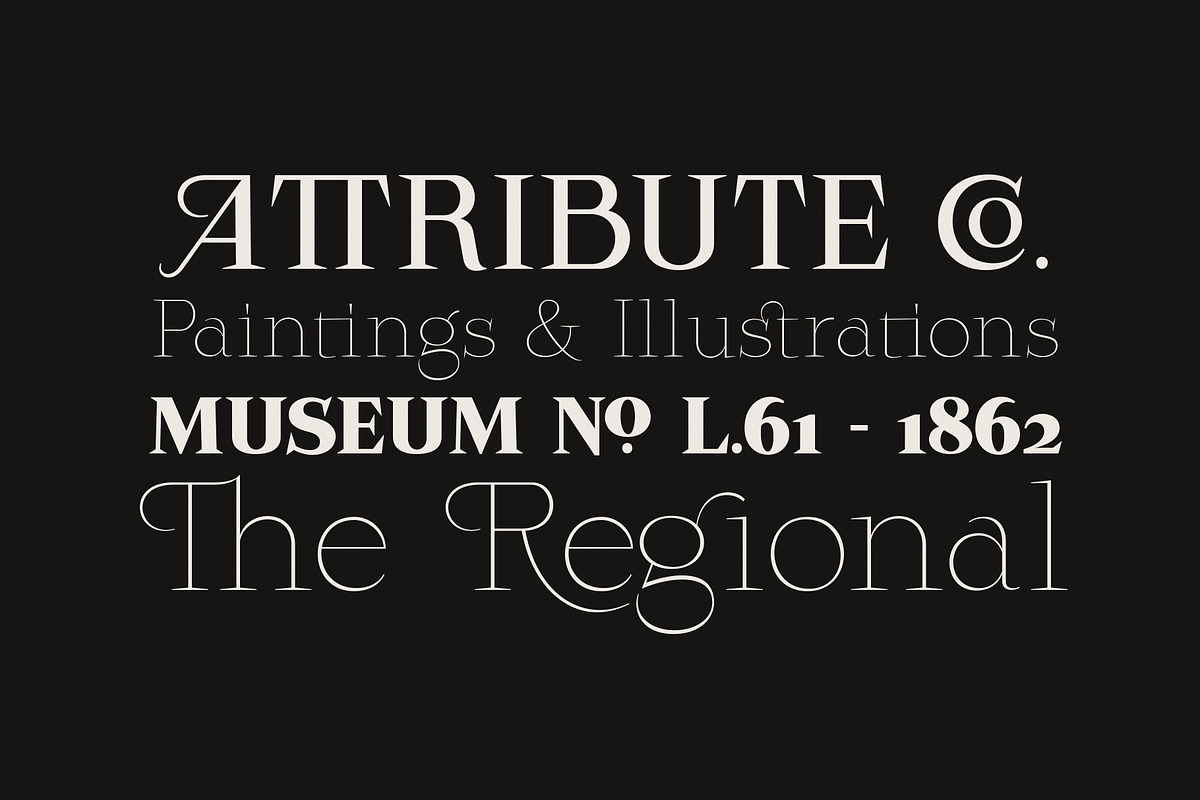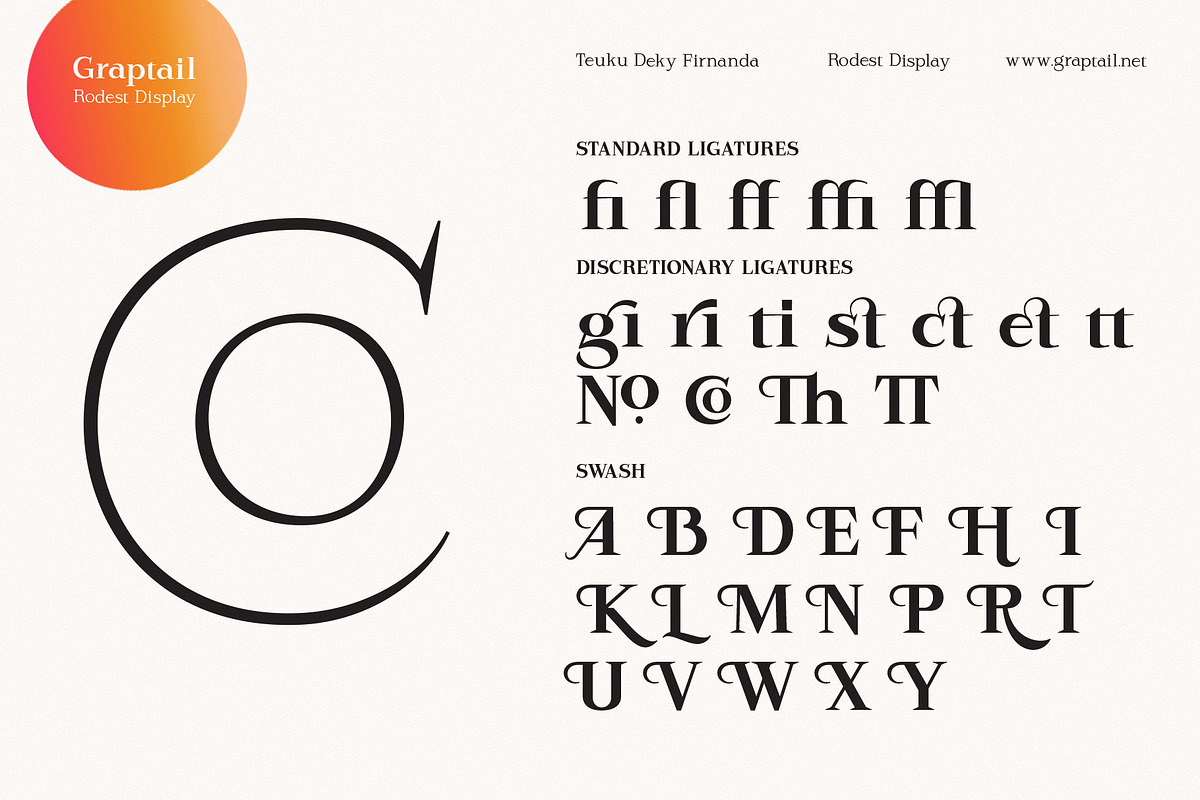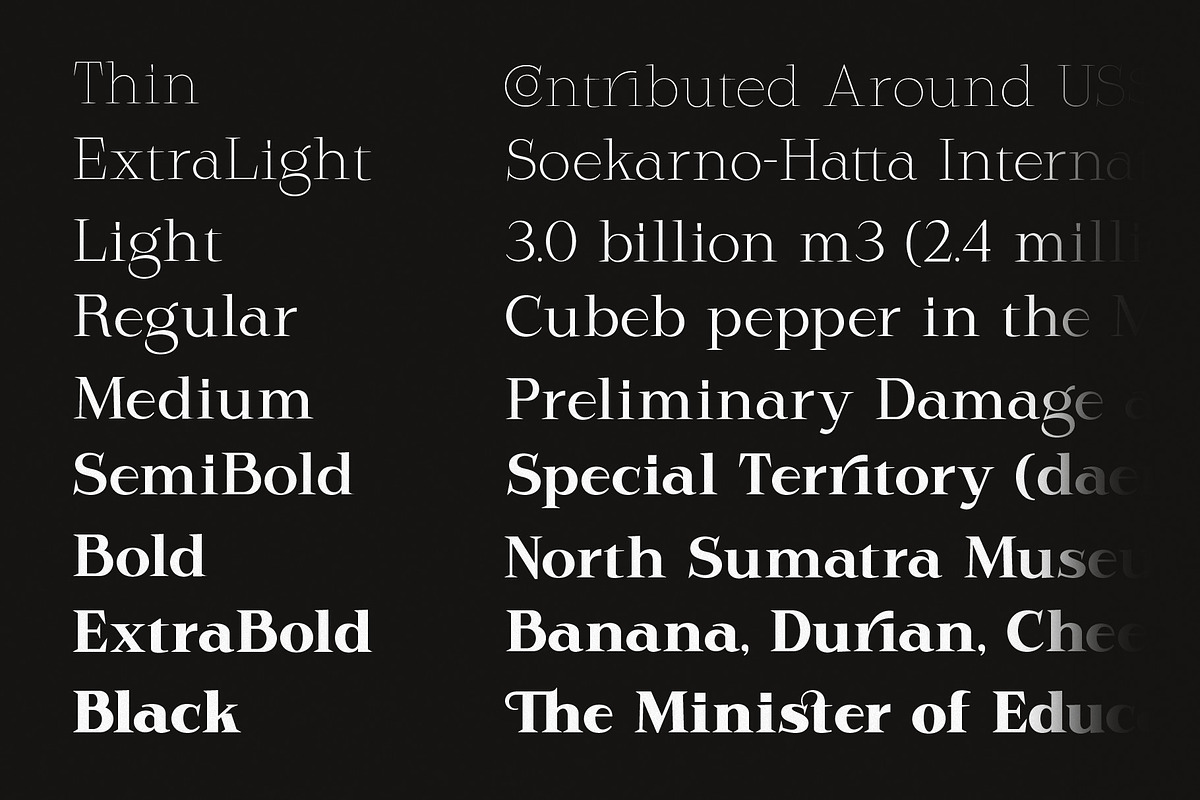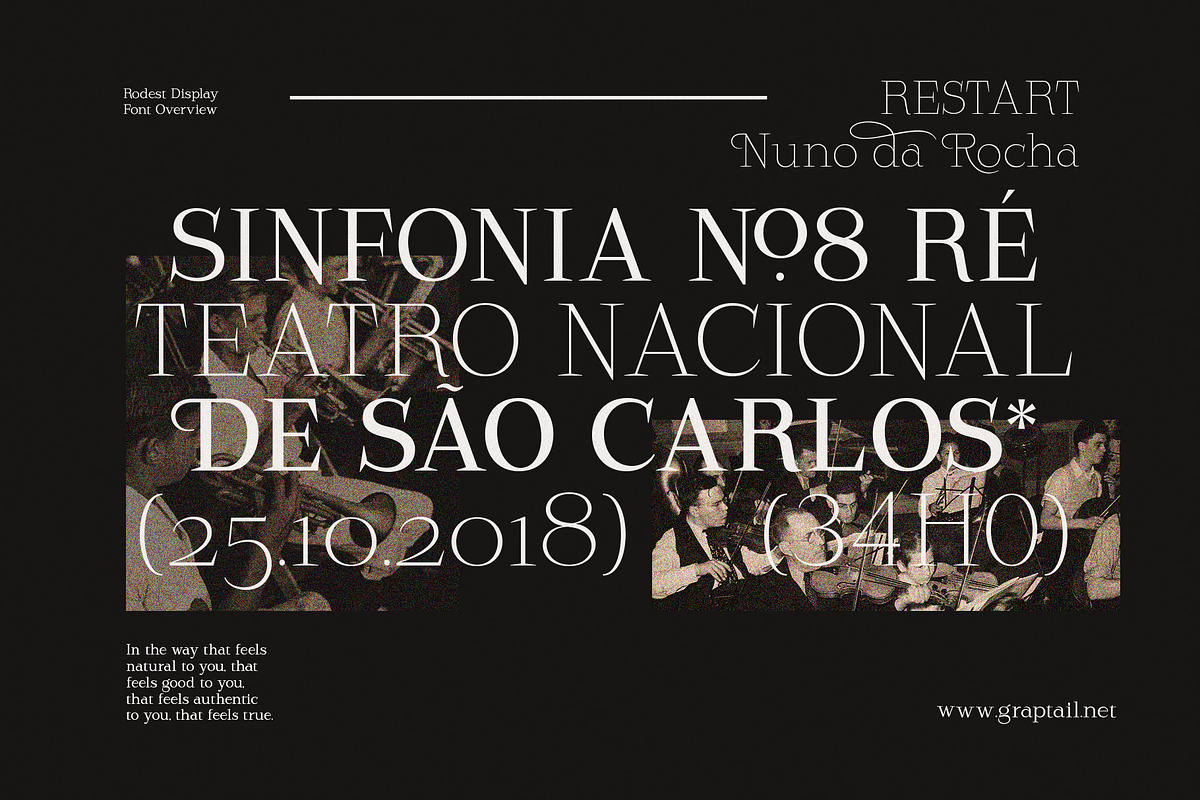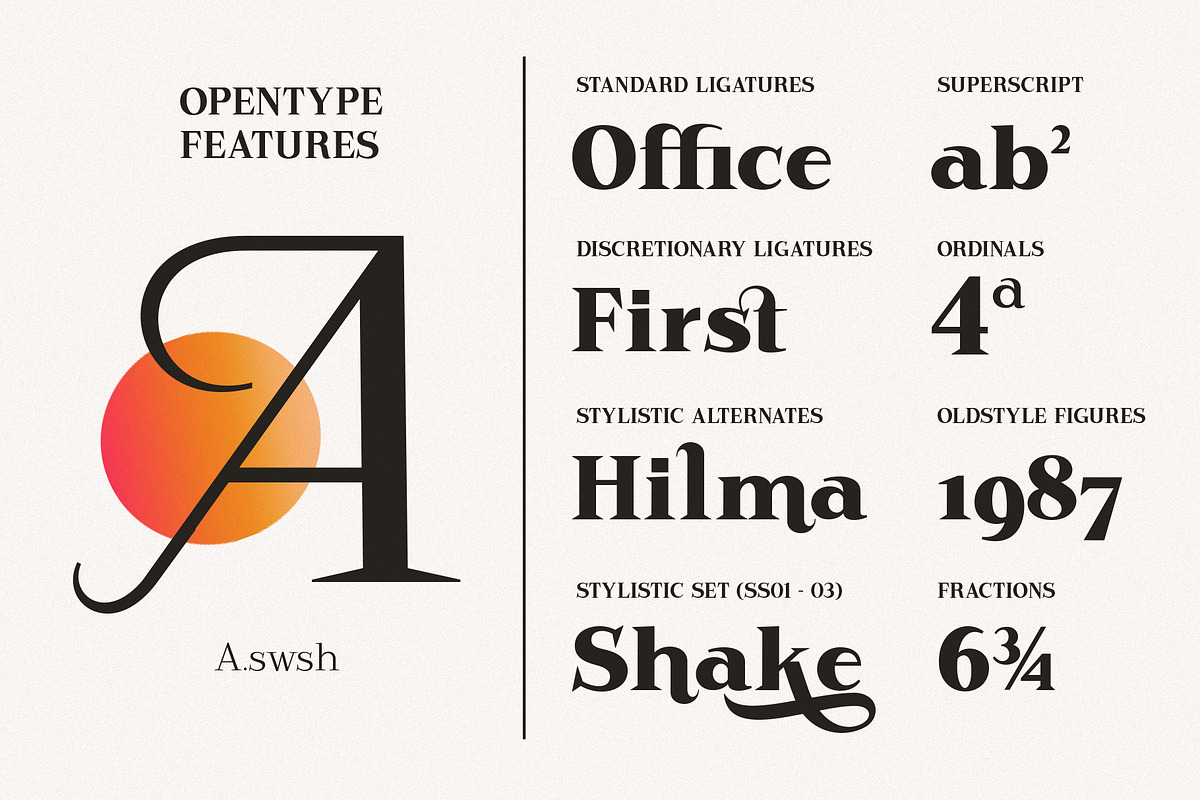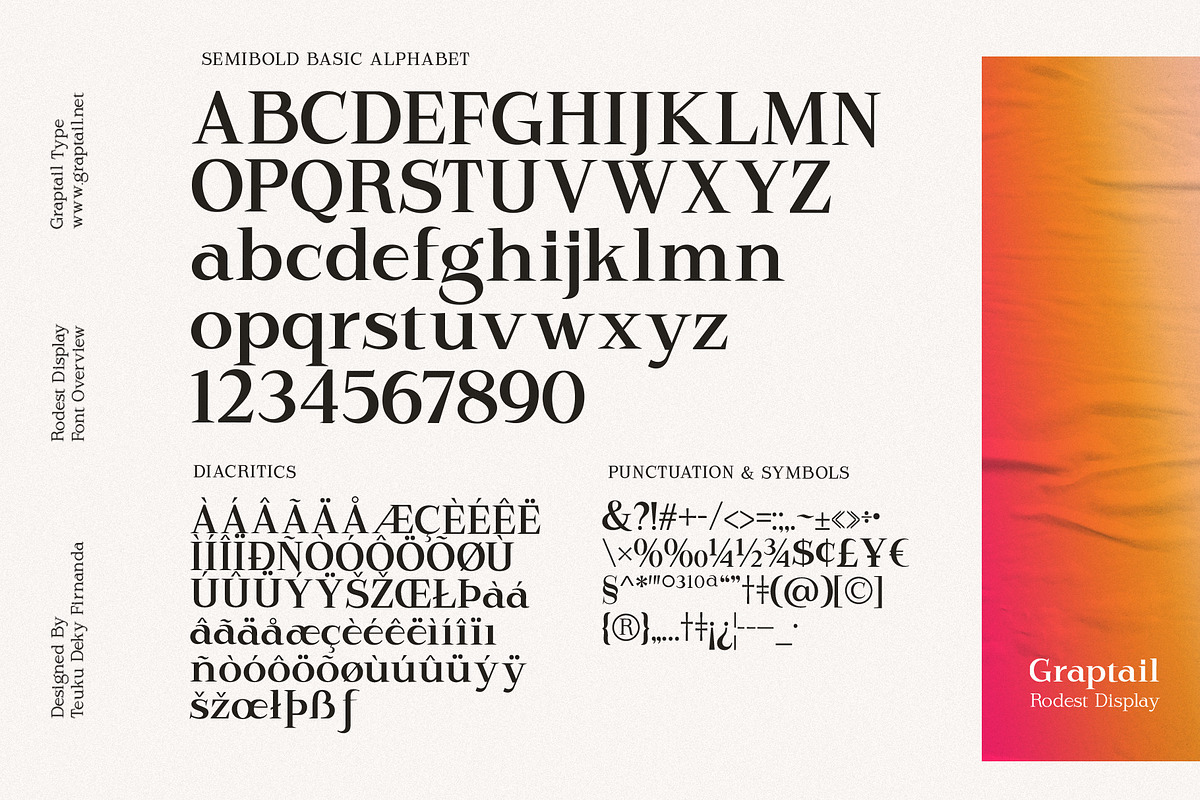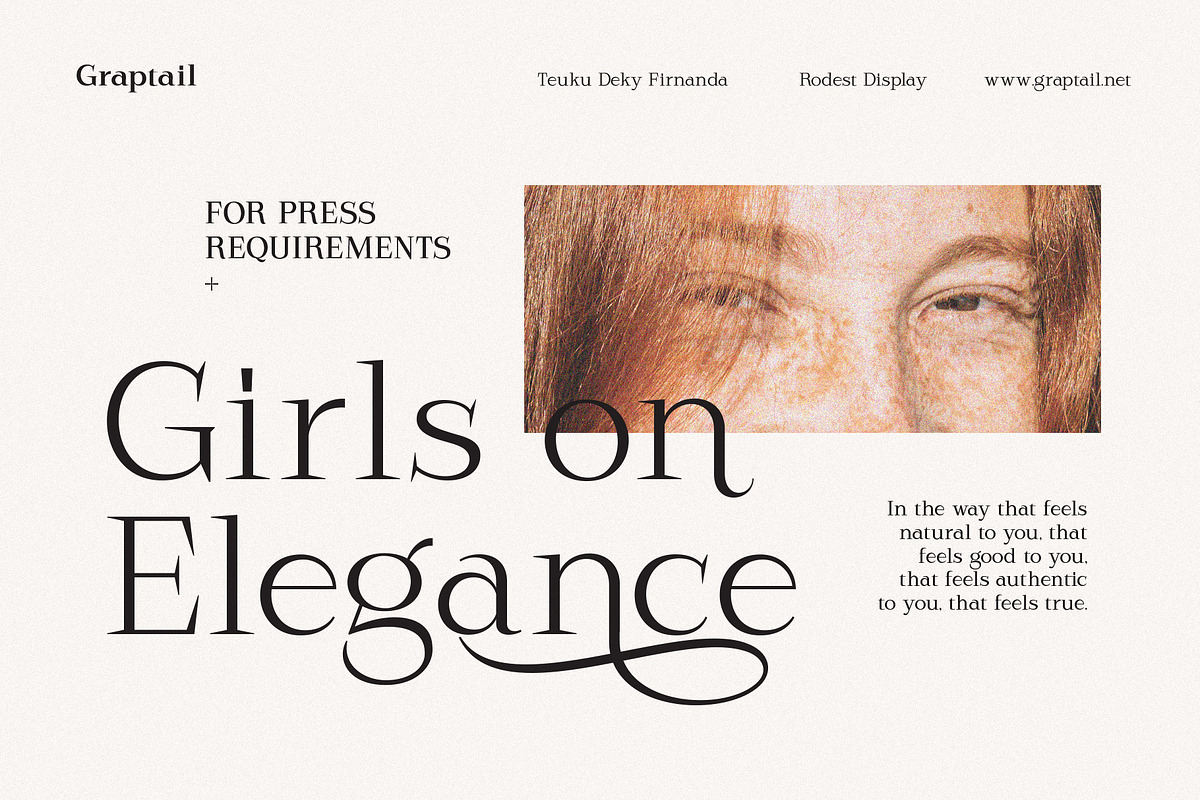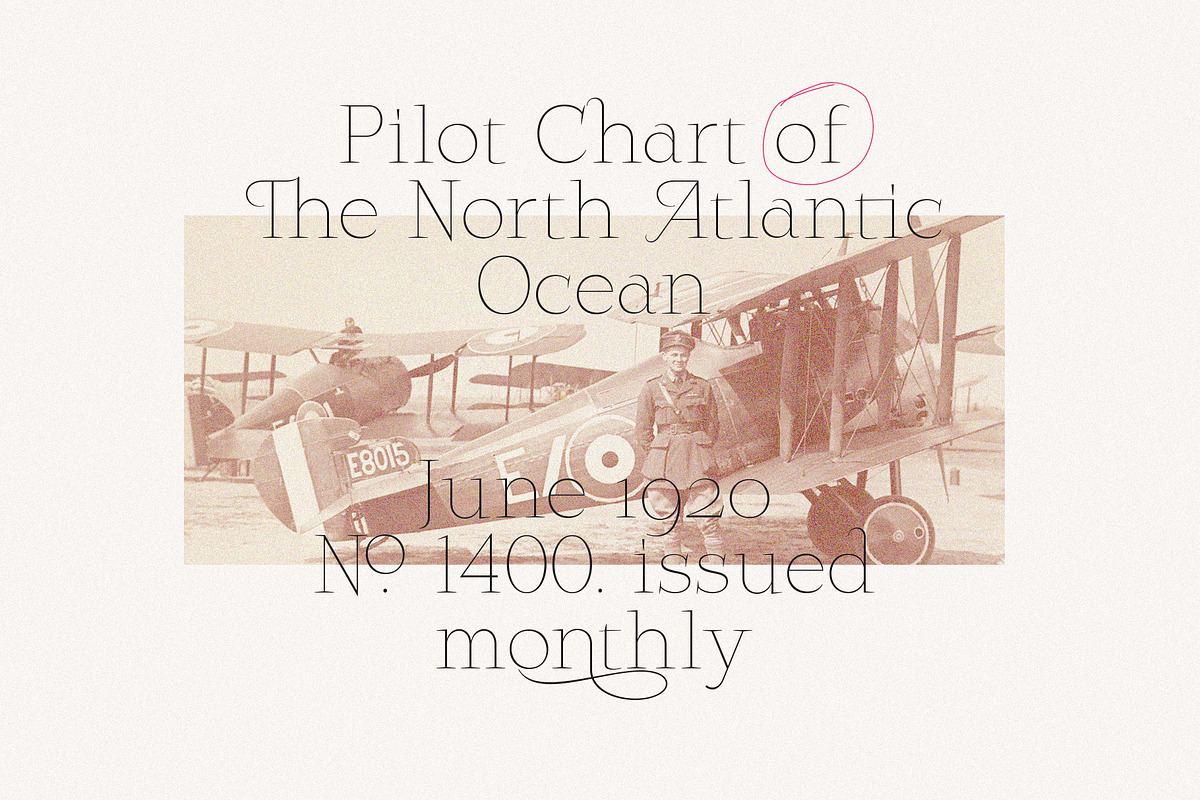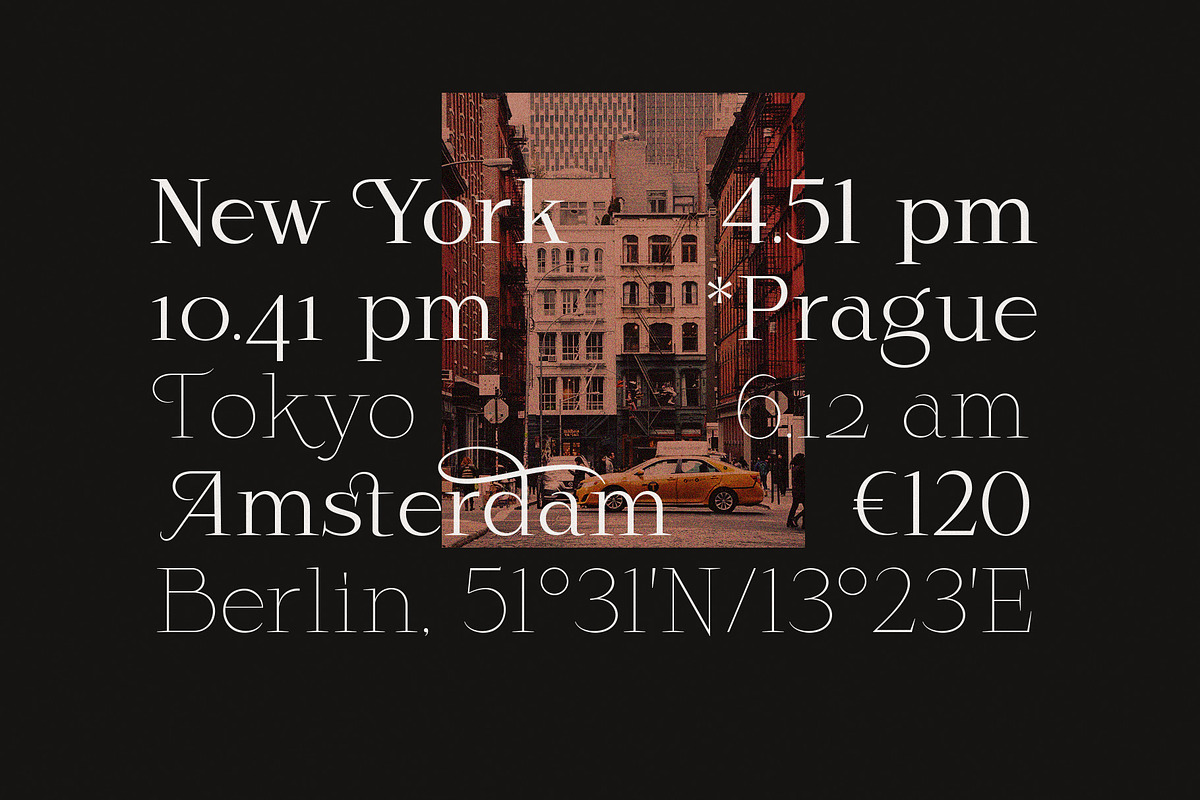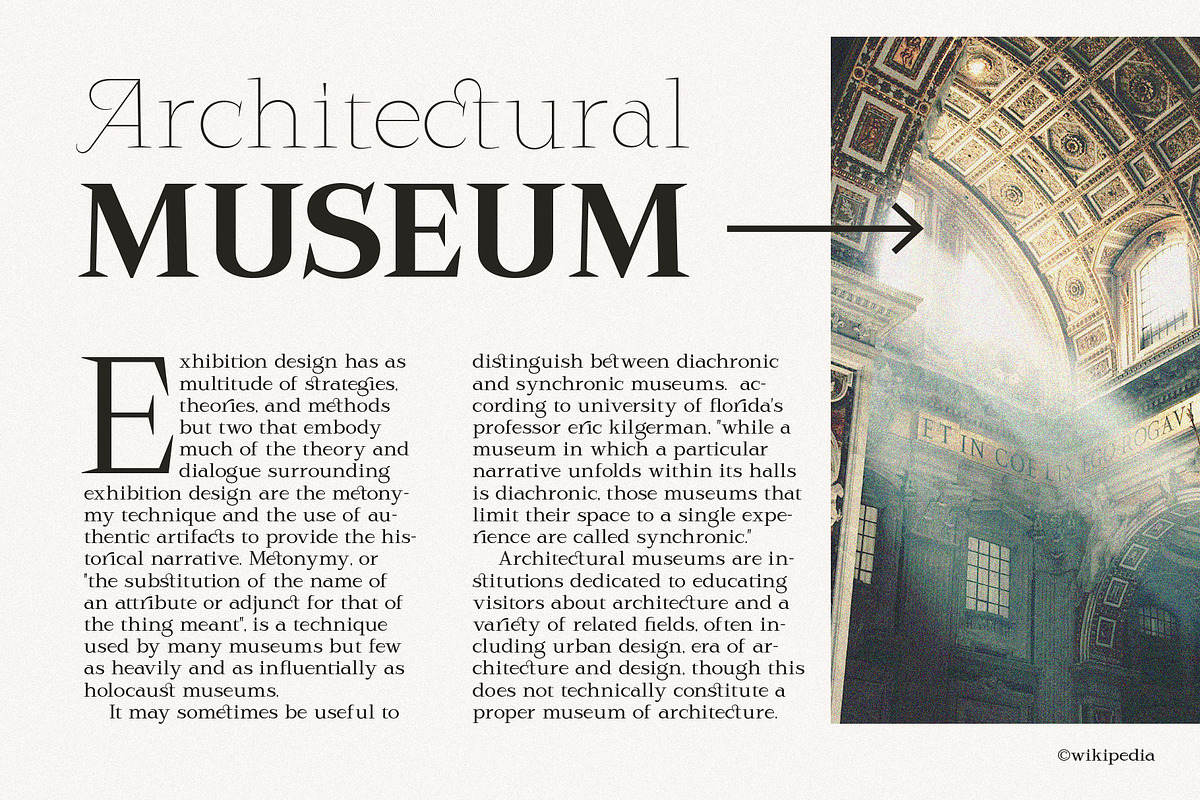
Rodest - Font Family
Rodest is a very soft serif typeface that adds a touch of curvature to certain letters to reflect the feminine value of the shape. ( You can try this font for free at https://bit.ly/38pdyQi )
The contrast between thick and thin strokes gives Rodest a harmonious and stylish look. It comes in 9 variables plus an alternative version making it perfect for editorial designs, branding, magazines, logos, headers, and more.
OPENTYPE FEATURES
- Discretionary Ligature
- Standard Ligature
- Fractions
- Stylistic Set